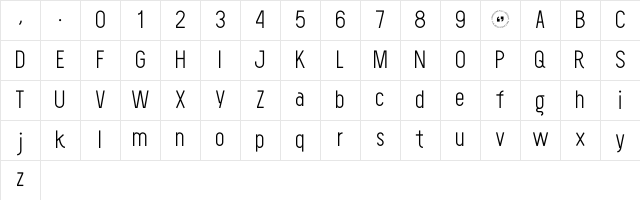
THE LIGHT FONT (DEMO VERSION)
Foundry: THE BOLD FONT
Designer: SVEN PELS
Design Context for THE LIGHT FONT
THE LIGHT FONT is a composed and adaptable typeface that performs quietly and consistently across a wide range of design contexts. Its slender proportions lend an understated elegance to any composition.